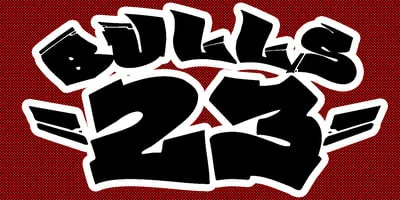
OldsCool Font
OldsCool Font is perfect for vintage automotive branding, classic car shows, retro diner signage, nostalgic advertising campaigns, vintage motorcycle graphics, old school tattoo designs, rockabilly music promotions, classic Americana projects, heritage brand revival, and nostalgic lifestyle marketing.
What makes OldsCool Font exciting is its authentic vintage charm that perfectly captures the golden era of American automotive culture and classic design aesthetics from the 1950s and 1960s. This typeface features distinctive letterforms with retro styling and period-appropriate character details that evoke the rebellious spirit and craftsmanship of classic hot rods and vintage Americana. The font's nostalgic personality and authentic vintage appeal make it ideal for brands seeking to connect with classic car enthusiasts and retro culture appreciation.
OldsCool Font family includes various stylistic alternatives and decorative elements that enhance its vintage authenticity while providing design flexibility. The font features classic ligatures, retro ornaments, and period-specific character variations that create genuine old-school atmosphere for heritage and nostalgic applications.
Automotive restoration shops and vintage lifestyle brands consistently choose OldsCool Font for projects requiring authentic retro character and classic appeal. The font's nostalgic charm excels in applications targeting classic car enthusiasts, vintage collectors, and retro culture communities. Whether you're designing for car shows, vintage merchandise, or heritage brand campaigns, this classic typeface delivers the genuine old-school spirit and timeless cool that resonates with audiences who appreciate authentic craftsmanship and vintage American style.